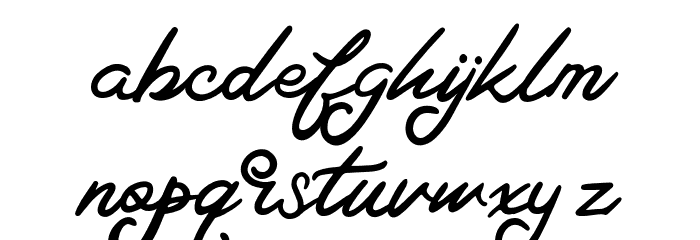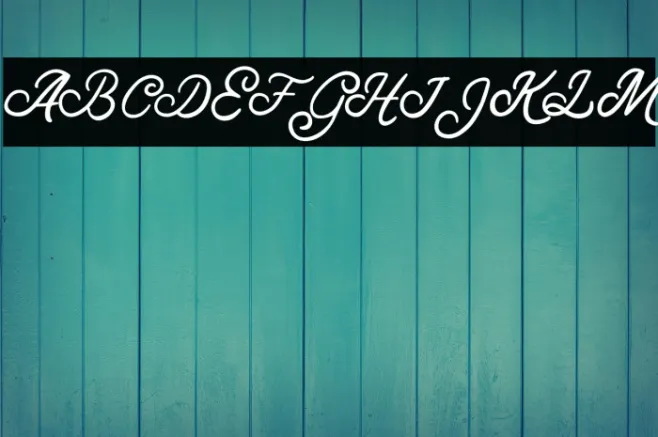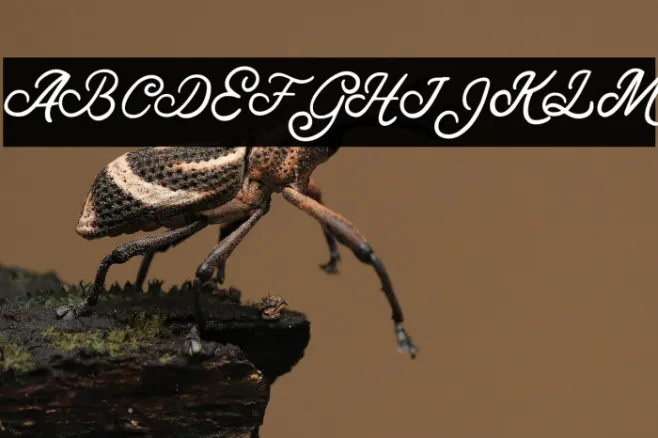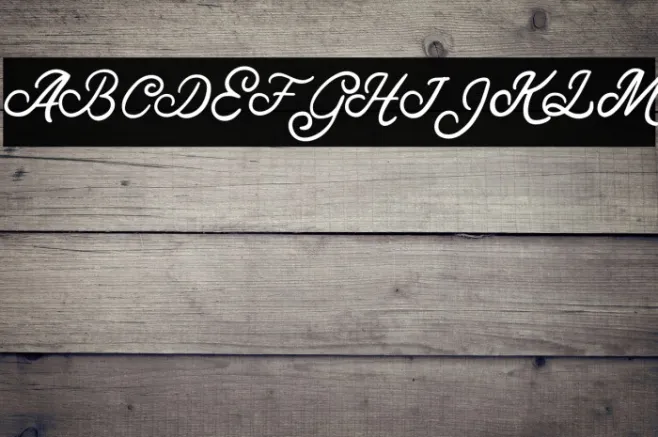
GeorgeFREE Font
This font features an elegant and flowing script style, characterized by its smooth, cursive letterforms that convey a sense of sophistication and grace. The uppercase letters are ornate, with sweeping curves and flourishes that add a decorative touch. The lowercase letters maintain a consistent flow, enhancing readability while retaining the font's artistic flair. The overall design is reminiscent of traditional calligraphy, making it suitable for formal and creative applications. Its balanced weight and medium contrast in stroke thickness provide a harmonious appearance, ensuring legibility without compromising on style.
An elegant script font with flowing, cursive letterforms and decorative flourishes.
- Font: GeorgeFREE
- Proposed Projects: Ideal for wedding invitations, greeting cards, branding projects, and elegant packaging designs.
- Category: Script
- Overall Style: Classic
- Use Case: Logos, Invitations, Decorative text